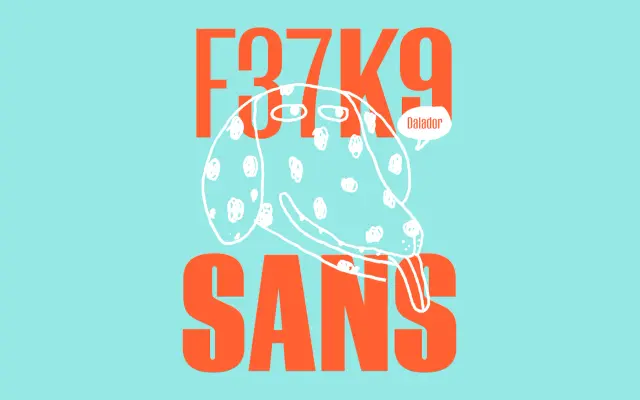
F37 K9 specimen from F37 Foundry
A stencil-edged display sans with a tight, punchy mood and a wide K9 family of soft, round, slab, wedge and serif siblings.
A display sans by Rick Banks with a stencil-influenced bite. Eight styles run from Light to Bold with matching italics. K9 anchors a wide system that includes K9 Round, K9 Serif, K9 Slab, K9 Soft and K9 Wedge, all sharing the same skeletal proportions. F37 frame the family around hybrid breeds and genetic matchmaking, which suits youth brands, music, sport, podcast identity and posters that want a tight, loud voice.
F37 frame K9 around dog hybrids, with sample lines naming Puggle, Dorgi, Chusky, Dalmador, Wauzer, Yorkipoo. The drawing is a stencil-influenced display sans with a touch of cut-edge bite.